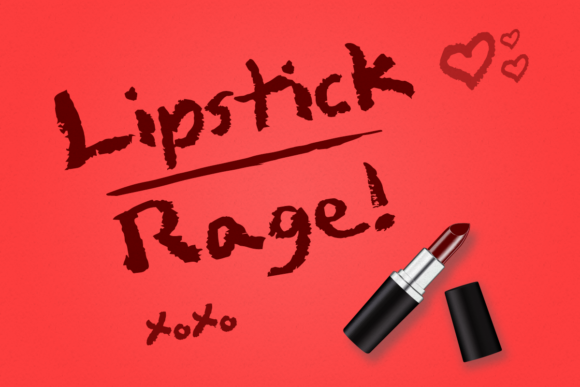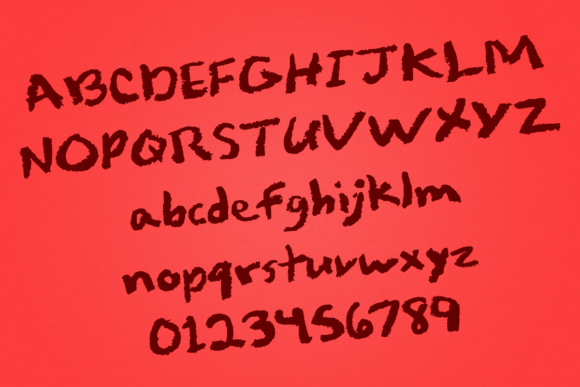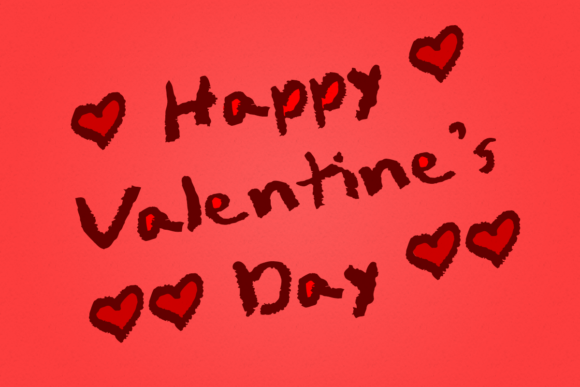
Lipstick Rage Font
About Lipstick Rage Font
Lipstick Rage was hand drawn with actual lipstick! It has a raw and authentic look that will add a modern flair to your projects!